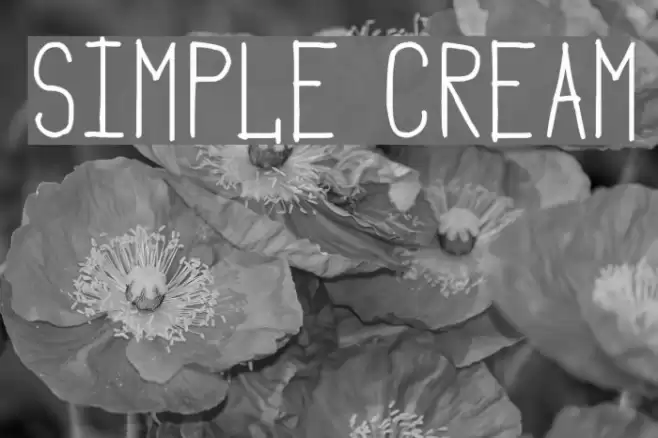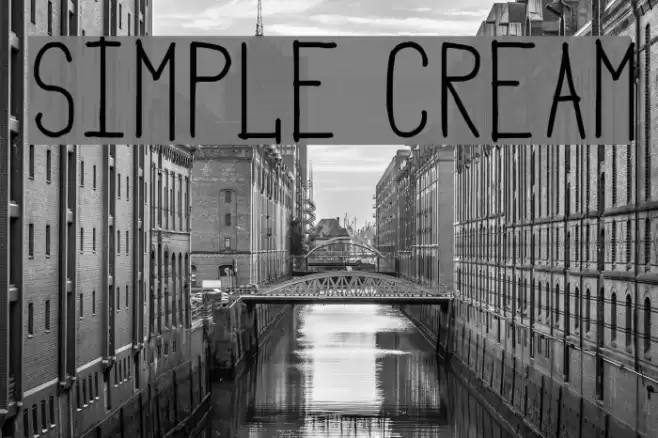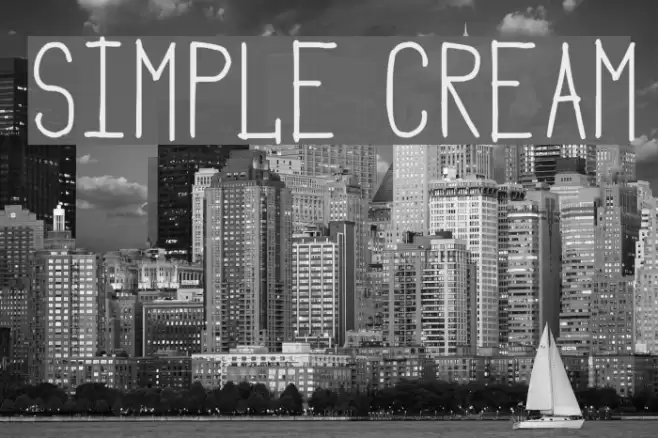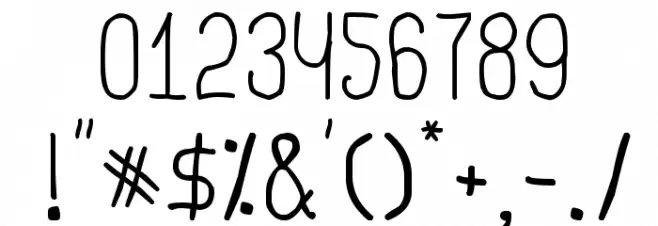
Simple Cream Font
Simple Cream Description
This font features a playful and casual handwritten style, characterized by its tall, narrow letters and slightly irregular strokes. The uppercase and lowercase letters maintain a consistent height, giving it a uniform appearance. The numbers and special characters are designed to match the whimsical nature of the alphabet, with rounded edges and a slightly uneven baseline that adds to its charm. The overall look is approachable and friendly, making it suitable for projects that require a personal touch.
A playful, handwritten font with tall, narrow letters and a casual style from Uncategorized fonts.
- Proposed Projects: Ideal for greeting cards, children's books, casual invitations, and playful branding.
- Overall Style: Casual
- Use Case: Headlines, Logos, Informal Text